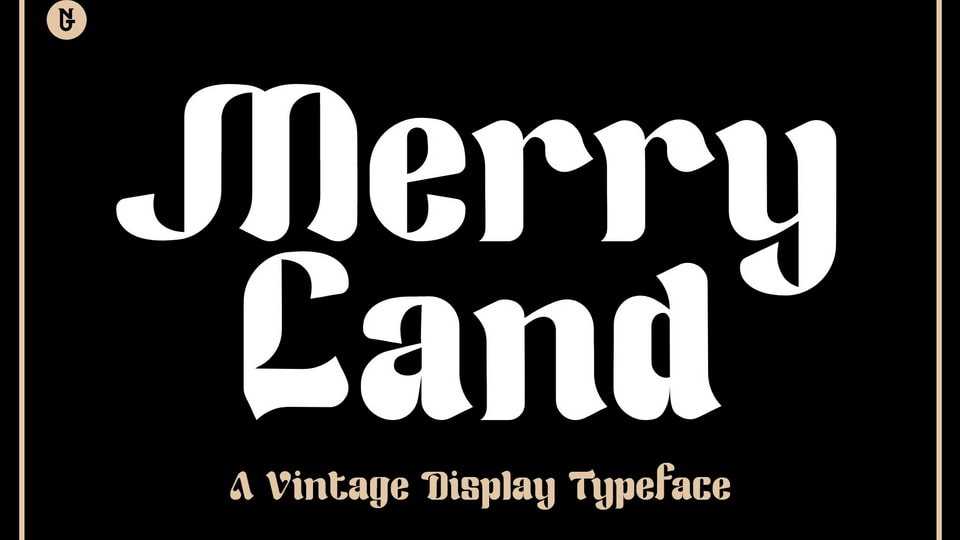
Download Merry Land font, a whimsical and playful typeface designed to evoke a sense of joy and creativity. With its quirky, hand-drawn style, Merry Land features irregular lines and charming imperfections that give it a unique, handcrafted feel.
Designer: Nestypefont